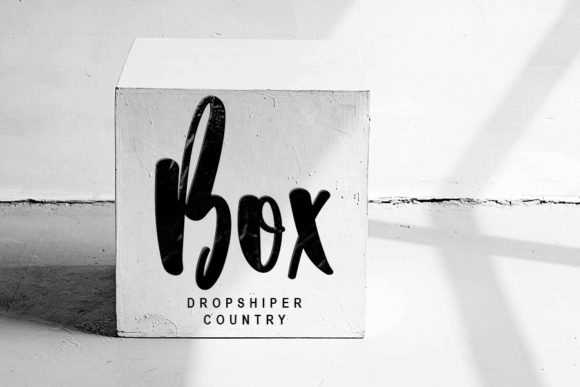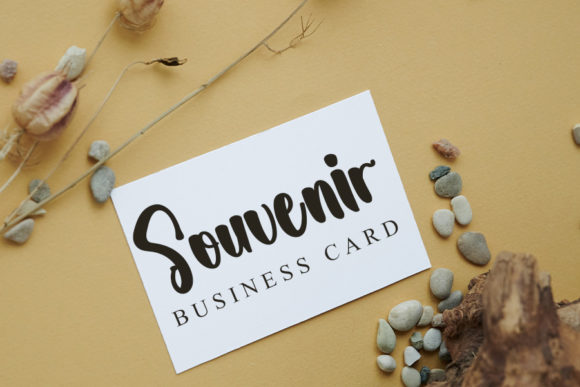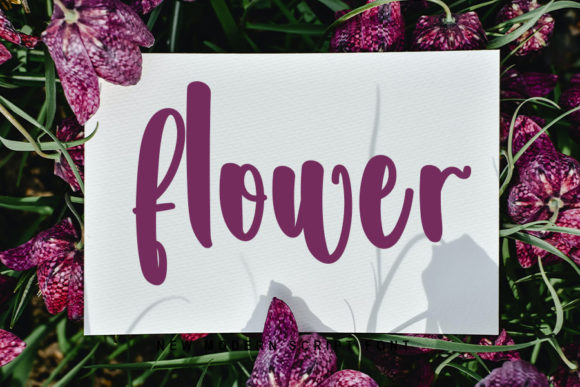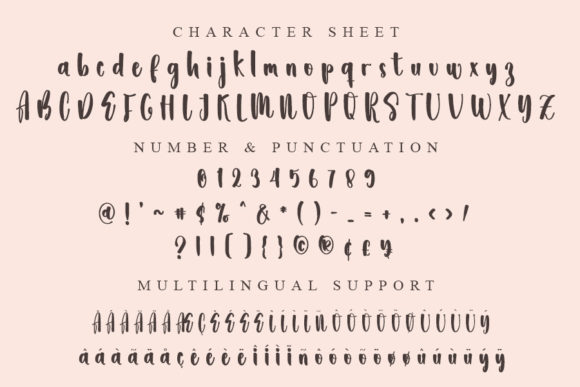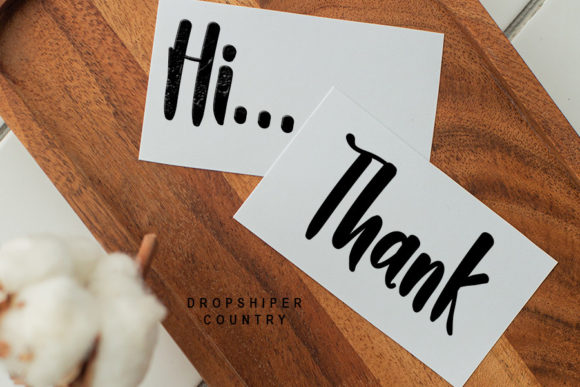
The Perfect Touch for Your Next Creative Project
Do you remember that moment when you first saw a beautifully designed invitation or a heartfelt birthday card? The way the words seemed to dance across the page, filling your heart with joy and warmth? That’s exactly what you can achieve with the right font – and that’s where Buggies Font comes in. This enchanting handwritten font is designed to add a romantic touch to your designs, making them truly special and memorable.
Buggies Font is a versatile typeface that can be used for a wide range of applications, from greeting cards to headlines. Whether you’re a seasoned designer or a beginner looking to add a personal touch to your projects, Buggies Font is guaranteed to make your designs stand out. With its unique charm and character, this font is a valuable addition to any designer’s toolkit.
Buggies Font Key Features
- Unique Characteristics: Buggies Font features a unique, hand-drawn style with irregular lines and subtle texture, giving it a distinctive and eye-catching appearance.
Buggies Font Review
At first glance, Buggies Font appears to be a quirky and playful addition to any design project. ✨ Its unique, rounded design elements and varied character set make it a great choice for those looking to add a touch of whimsy to their work. ✨ The font’s versatility in size and style allows it to be used effectively in a range of applications, from children’s books to advertising campaigns.
- Quirky and playful design elements that add character to any project
- Versatility in size and style
- Great for use in children’s books, advertising campaigns, and other applications where a lighthearted tone is desired
However, Buggies Font also has some limitations that designers should be aware of. ⚠️ The font’s overall aesthetic may not be to everyone’s taste, and some users may find it too childish or gimmicky. Additionally, the font’s character set is not as comprehensive as some other fonts, which may limit its use in certain applications.
- Aesthetic may not appeal to all users
- Character set is not as comprehensive as some other fonts
- May be too childish or gimmicky for some applications
Overall, Buggies Font is a fun and versatile addition to any design project, but may not be the best choice for all users. With its unique design elements and varied character set, it’s a great option for those looking to add a touch of whimsy to their work.
Buggies Font Practical Application Guide
Use Buggies font for titles, headings, and short paragraphs to create a playful and whimsical feel. Experiment with different font sizes and colors to add visual interest. Avoid using it for large blocks of text, as it can be difficult to read.
Buggies font is ideal for:
- Children’s book covers and illustrations
- Playful branding and marketing materials